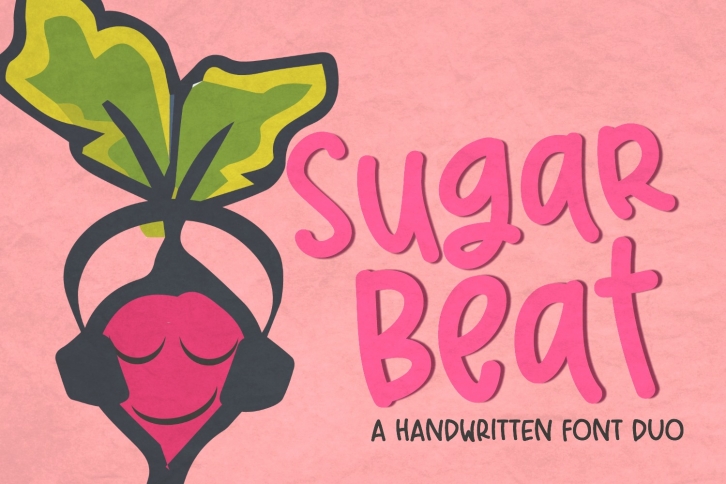
Sugar Beat Handwritten is a trendy and unique font with an authentic style. It was designed by Sabrina Schleiger Design - SVG Bliss and it's a great choice for creative people who need such a font. It was released on December 7, 2018 and the file size is 3.13 MB. Sugar Beat Handwritten will add an organic vibe to any design idea!